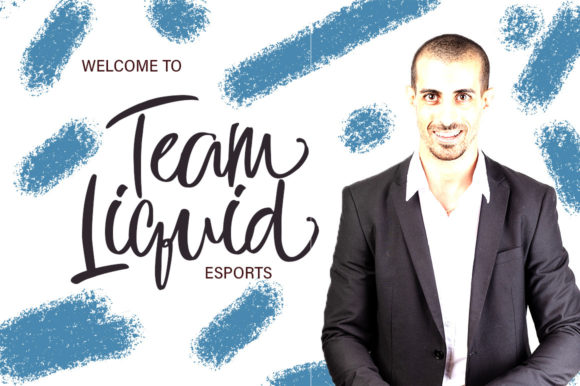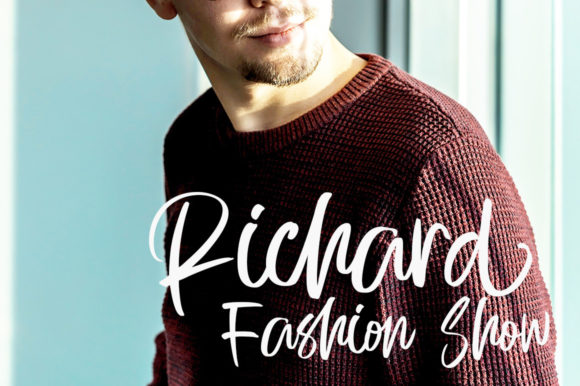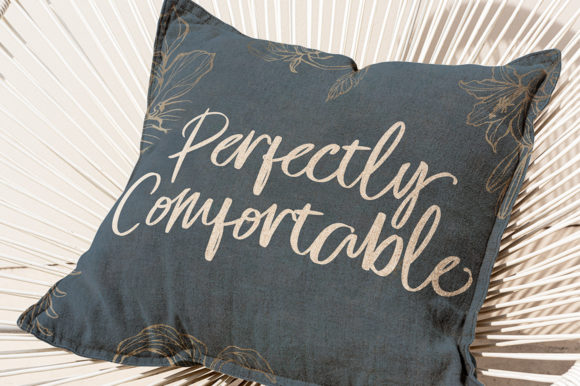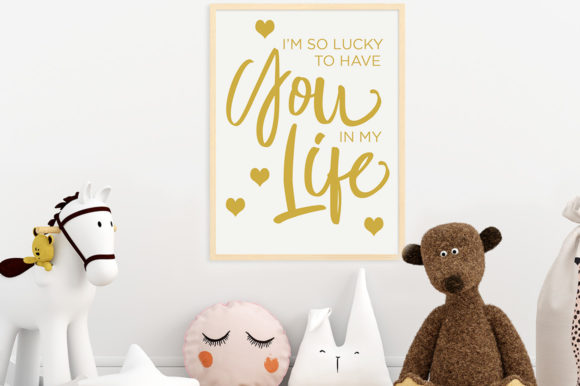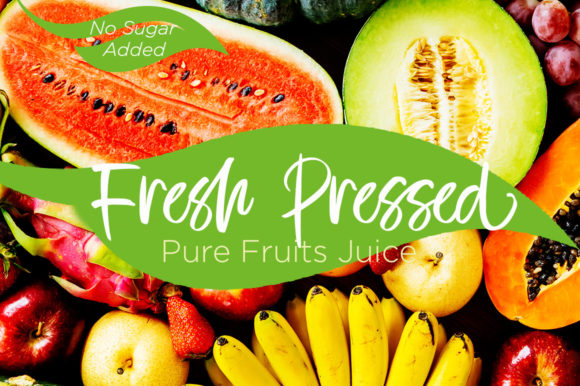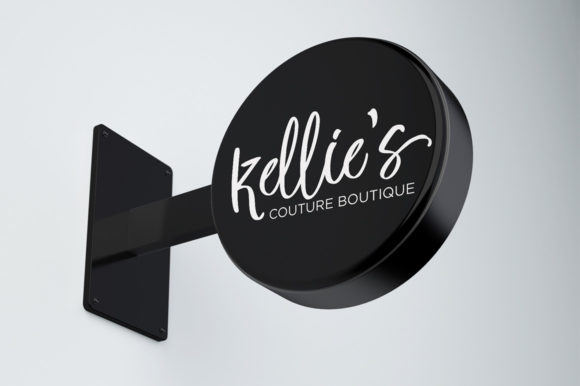
The Search for the Perfect Font
Have you ever stared at a blank page, trying to decide on the perfect font to convey the essence of your brand? The frustration is real, but what if I told you that the solution lies in a font that exudes elegance and sophistication, without compromising on friendliness?
Meet the Inquired Font, a stunning handwritten font that embodies the perfect blend of femininity and class. Designed to make a lasting impression, Inquired Font is perfect for fashion, e-commerce brands, trend blogs, and wedding boutiques looking to elevate their visual identity. Whether you’re a seasoned designer or just starting out, this font is sure to become your go-to choice for creating an upscale and chic aesthetic.
Inquired Font Key Features
- Font Family: Inquired Font comes in two font families – Inquired Font Regular and Inquired Font Italic.
- Unique Characteristics: Inquired Font features a unique blend of modern and vintage elements, with intricate details and subtle flourishes.
Designer Review: Inquired Font
First off, I want to say that I’m a big fan of Inquired Font. The overall aesthetic is ✨ sleek and modern, with a clean and minimalistic design that makes it perfect for a wide range of projects. I love how the font is highly customizable, with a range of weights and styles to choose from, making it easy to create a unique and engaging visual identity.
One of the things that really stands out about Inquired Font is its ✨ legibility. The font is incredibly easy to read, even at small font sizes, making it perfect for applications where space is limited. I’ve also been impressed with the font’s ✨ versatility – it works beautifully for both digital and print projects.
While I’m generally very impressed with Inquired Font, there are a few limitations that I think are worth mentioning:
- ⚠️ Limited support for non-Latin scripts – while the font is great for English and other Latin-based languages, it may not be the best choice for projects that require support for other languages.
- ⚠️ Some users have reported issues with font rendering on certain operating systems – while this hasn’t been a problem for me, it’s definitely something to be aware of.
Overall, I’m very impressed with Inquired Font. While it may not be perfect, it’s a great choice for a wide range of projects and is sure to deliver a sleek and modern look. With a little bit of experimentation, I think you’ll be able to get the most out of this fantastic font.
To get the most out of Inquired Font, use it for:
- Titles and headings
- Quotes and testimonials
Alternatives to Inquired Font for Designers
Playfair Display is a luxurious and elegant font suitable for titles, headings, and other prominent text elements. It features high contrast and ornate details, making it perfect for upscale designs, magazines, and advertising materials.
Compared to Inquired Font, Playfair Display has a more refined and sophisticated look, ideal for high-end branding and editorial projects. While Inquired Font is a modern and clean font, Playfair Display adds a touch of vintage elegance to any design.
Great Vibes is a modern script font that exudes a sense of friendliness and approachability. It’s ideal for titles, quotes, and other text elements that require a personal touch. Great Vibes is perfect for branding, advertising, and social media materials.
Compared to Inquired Font, Great Vibes has a more fluid and organic feel, making it suitable for designs that require a human touch. While Inquired Font is clean and modern, Great Vibes adds a sense of personality and emotion to any design.
Pacifico is a beautiful and elegant script font that evokes a sense of relaxation and calmness. It’s perfect for titles, quotes, and other text elements that require a soothing touch. Pacifico is ideal for branding, advertising, and editorial materials.